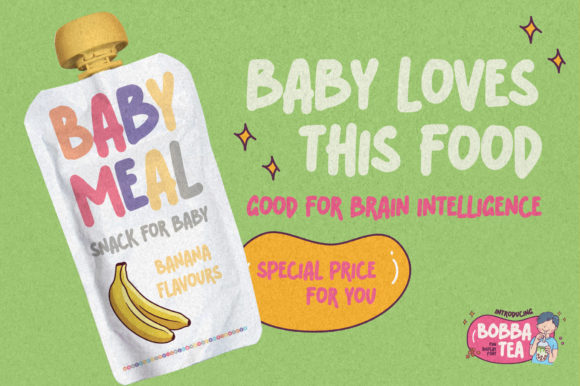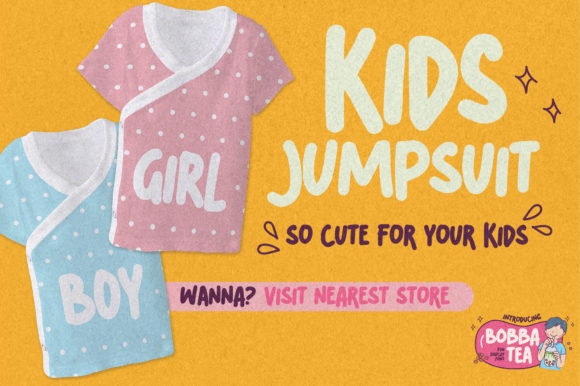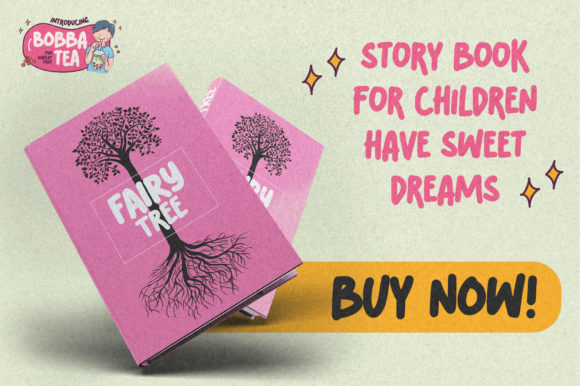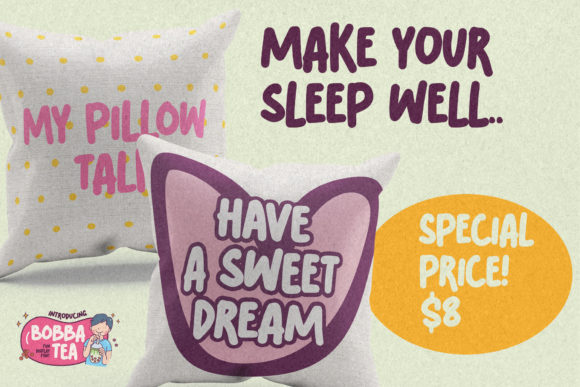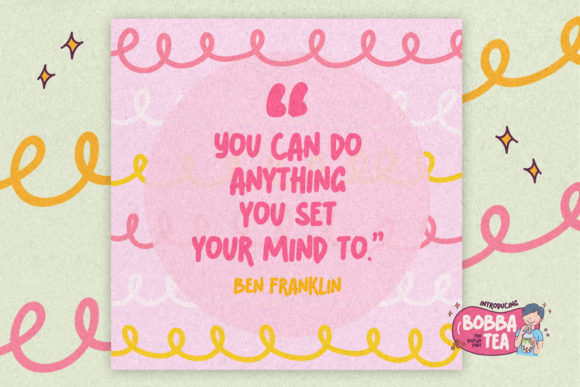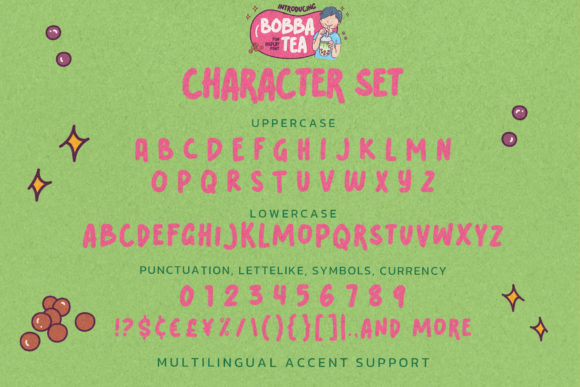
Introducing Bobba Tea Font: The Fun and Bubbly Display Font You Need!
Are you tired of using the same old fonts in your designs? Do you want to add a touch of fun and playfulness to your creations? Look no further than the Bobba Tea Font! This delightful display font is perfect for designers, crafters, and anyone looking to add a bit of whimsy to their work.
What is Bobba Tea Font?
Bobba Tea Font is a unique and eye-catching display font that is sure to capture attention. With its fun and bubbly personality, this font is perfect for a wide range of design projects, from social media graphics and posters to invitations and branding materials. Whether you’re designing for a client or creating something for personal use, Bobba Tea Font is a wonderful asset to have in your font library.
Key Features of Bobba Tea Font
- Fun and playful design: Bobba Tea Font features a unique and quirky design that is sure to add a touch of personality to your creations.
- Display font: This font is specifically designed as a display font, making it perfect for headlines, titles, and other attention-grabbing elements.
- Versatile: Bobba Tea Font can be used for a wide range of design projects, from digital graphics to print materials.
- Easy to read: Despite its playful design, Bobba Tea Font is easy to read, making it perfect for use in a variety of contexts.
Why Use Bobba Tea Font?
So, why should you choose Bobba Tea Font for your design projects? Here are just a few reasons:
- Add a touch of personality: Bobba Tea Font is the perfect way to add a bit of fun and personality to your designs.
- Stand out from the crowd: With its unique design, Bobba Tea Font is sure to help your designs stand out from the crowd.
- Perfect for creative projects: If you’re working on a creative project, such as a craft or DIY tutorial, Bobba Tea Font is a great choice.
- Easy to pair with other fonts: Bobba Tea Font pairs well with a wide range of other fonts, making it easy to use in a variety of design contexts.
How to Use Bobba Tea Font
Using Bobba Tea Font is easy! Here are a few tips to get you started:
- Use it as a headline font: Bobba Tea Font is perfect for use as a headline font, adding a touch of personality to your titles and headings.
- Pair it with other fonts: Experiment with pairing Bobba Tea Font with other fonts to create a unique and eye-catching design.
- Use it for social media graphics: Bobba Tea Font is a great choice for social media graphics, such as Facebook posts and Instagram stories.
- Try it for craft projects: If you’re a crafter or DIY enthusiast, Bobba Tea Font is a great choice for projects such as signs, banners, and other decorative items.
In conclusion, Bobba Tea Font is a fun and bubbly display font that is sure to add a touch of personality to your designs. With its unique design, versatility, and ease of use, this font is perfect for designers, crafters, and anyone looking to add a bit of whimsy to their work. So why not give Bobba Tea Font a try today and see the difference it can make in your designs?
If you’re a designer or crafter looking to get the most out of Bobba Tea Font, here are a few tips:
- Experiment with different colors: Bobba Tea Font looks great in a variety of colors, so don’t be afraid to experiment and find the perfect hue for your design.
- Use it in combination with other design elements: Bobba Tea Font is a great choice for use in combination with other design elements, such as images and graphics.
- Try it for different design projects: Bobba Tea Font is versatile and can be used for a wide range of design projects, from digital graphics to print materials.
With its fun and playful design, Bobba Tea Font is sure to become a favorite in your font library. So why not give it a try today and see the difference it can make in your designs?